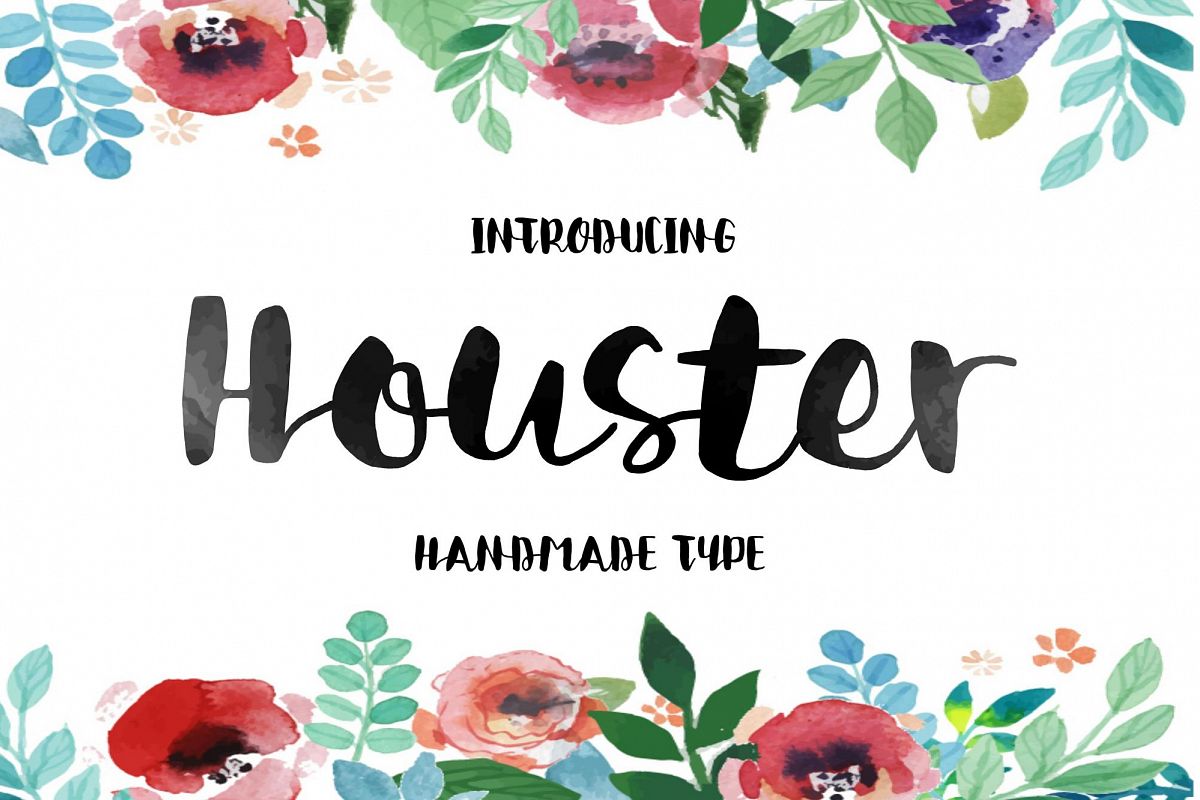
Houster Script
Houster
Houster Script
Introducing Houster Script is hand-letter script font. Houster script is an elegant, modern calligraphy font, designed to give an imperfect hand-sketched look at your work. It is suitable for a variety of applications such as stationery design, invitations, logos, labels, posters, merchandise products, etc.